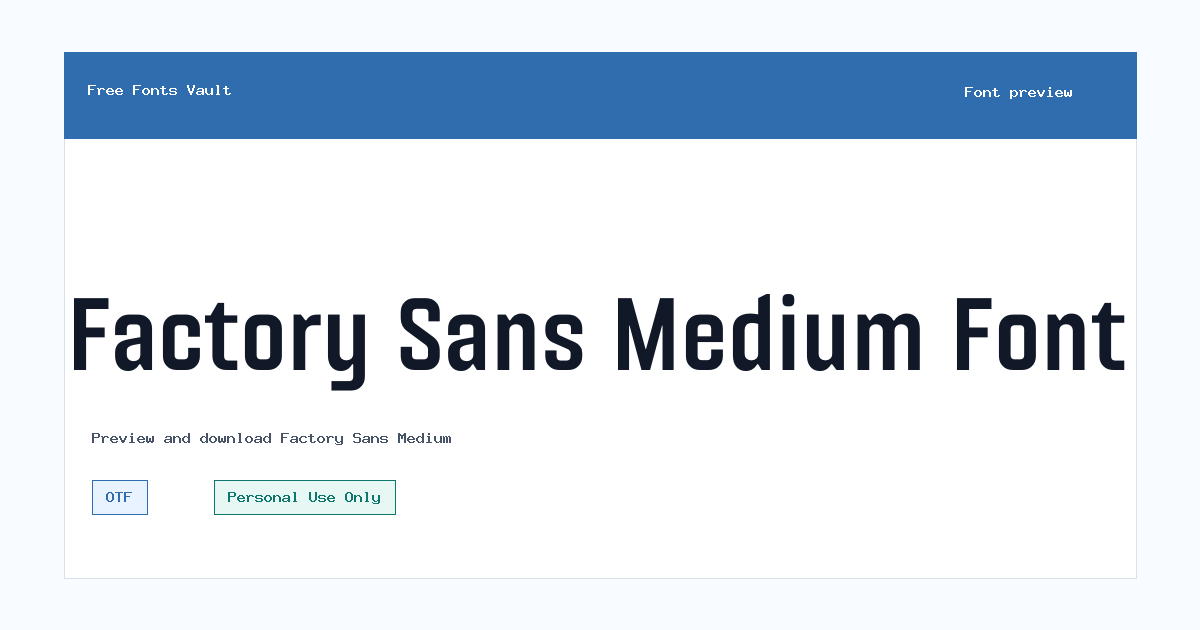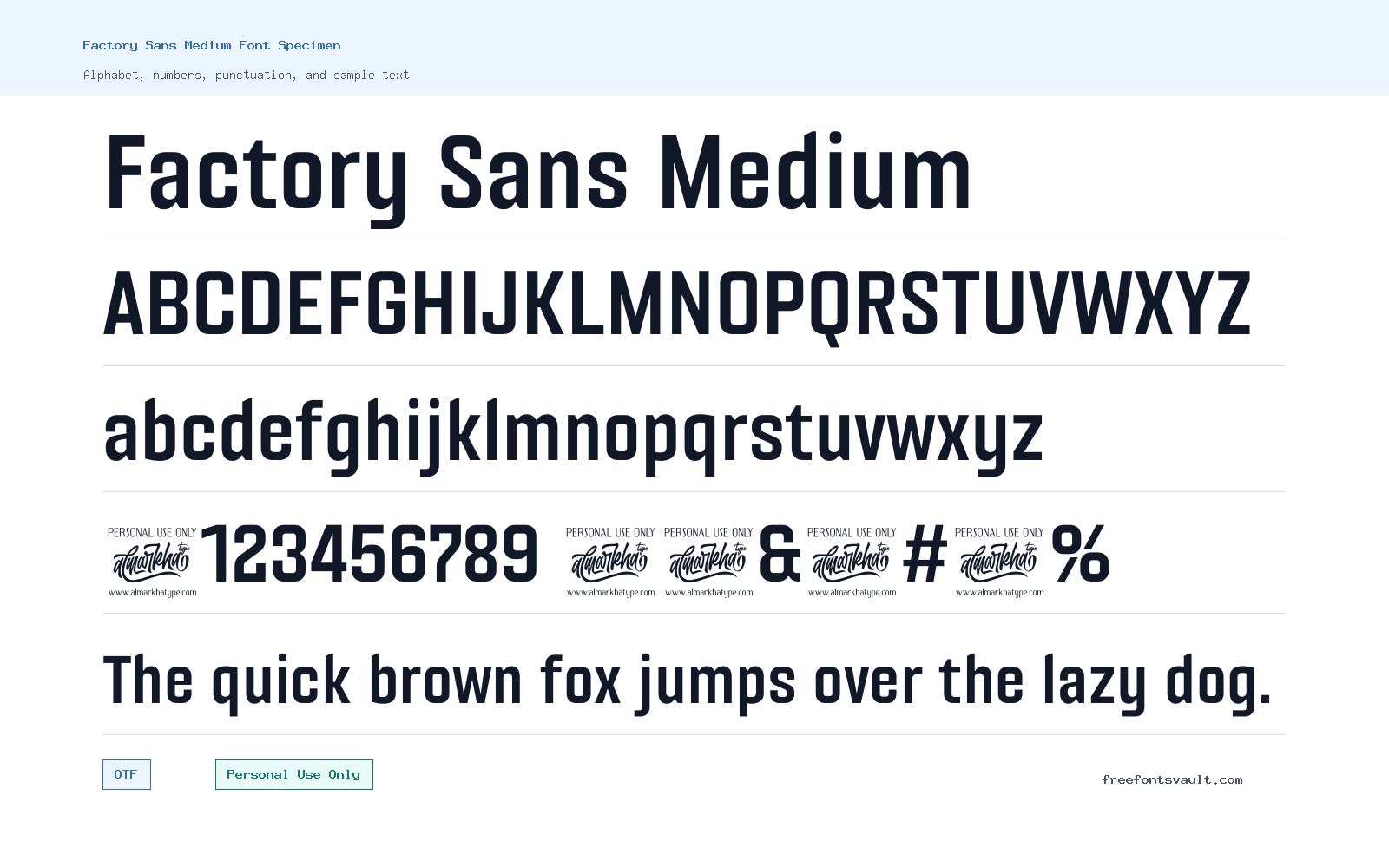
Factory Sans Medium
Factory Sans Medium is a personal-use sans serif font in OTF format, with a medium 500 weight that can work well when you need text that feels stronger than regular but not as heavy as bold.
Factory Sans Medium is a practical choice for designers who want a clean sans serif weight for short text, display layouts, and early brand exploration. The available style is normal, with a 500 weight, so it sits in the useful middle range between lighter body-text styles and heavier headline cuts. That makes it suitable for testing titles, section headers, buttons, labels, poster lines, and logo drafts where a balanced level of emphasis is needed.
Because the available download is a single OTF font file, it is best approached as a focused display or layout-testing font rather than a full multi-weight system. Use the preview text to check how your own words look in uppercase, lowercase, numbers, and punctuation before you commit it to a design. Medium-weight sans serifs can look polished in branding mockups and web concepts, but spacing and readability still depend on the exact letters you use, the size, and the amount of text. Try it first in short phrases, headings, navigation labels, quote graphics, social posts, packaging mockups, and poster compositions.
For logo work, Factory Sans Medium may be useful during the concept stage because a medium sans serif weight can give a mark enough presence without becoming too bulky. Keep the license limit in mind if you move from a personal concept to a real client or business project. If you are testing it for a logo, check the wordmark at small sizes, in black and white, and with extra letter spacing. A single medium weight can look neat in one-word marks, initials, badges, and clean typographic lockups, but longer names may need manual spacing adjustments.
For posters and web mockups, use Factory Sans Medium where clarity matters more than decorative detail. It can be tested for hero headings, call-to-action text, menu labels, card titles, and simple editorial layouts. Avoid using one medium-weight display font for every role in a design. Pair it with a quieter text face for paragraphs, or use it only for the parts that need emphasis. If a layout starts to feel too uniform, create contrast through size, spacing, color, or a secondary font rather than forcing the same style into every text level.
Font pairing should stay simple. A medium sans serif usually pairs well with a readable serif for editorial contrast, a lighter sans serif for body copy, or a neutral system font for interface mockups. If you pair it with another bold geometric or industrial-looking face, the design may become too rigid. Test pairings with real words, not just sample text, especially if the project includes names, numbers, prices, or short navigation labels.
- Normal style with a 500 medium weight, useful for headings, labels, and short display text
- Sans serif family naming, suitable for clean layout experiments and brand concept drafts
- Single available variant, making it simple to preview without choosing between multiple weights
- Logo concepts and wordmark drafts for personal projects
- Poster titles, social graphics, and short promotional headings
- Website mockups, hero text, buttons, menu labels, and card titles
- Brand identity exploration where a medium sans serif weight is needed
- Packaging mockups, presentation covers, and clean typographic layouts
What weight is Factory Sans Medium?
The available style is listed with a 500 font weight, which is commonly treated as a medium weight.
Can I use Factory Sans Medium for a logo?
You can test it in personal logo concepts and drafts, but you should not use it for a commercial logo unless you have the correct commercial license.
Is Factory Sans Medium good for body text?
It may work for short text, labels, and headings, but a single medium weight is not always ideal for long paragraphs. Preview longer copy carefully before using it in body text.
What should I pair Factory Sans Medium with?
Try pairing it with a readable serif, a lighter sans serif, or a neutral system font. Keep contrast clear so headings, labels, and paragraphs do not all feel the same.